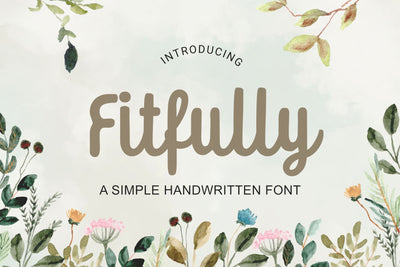
Fitfully - a Marker Script Font
Fitfully is a marker simple cursive script font which is perfect for crafty projects, quotes, social media. Use this font for invitations, branding, flyers, posters, and more.